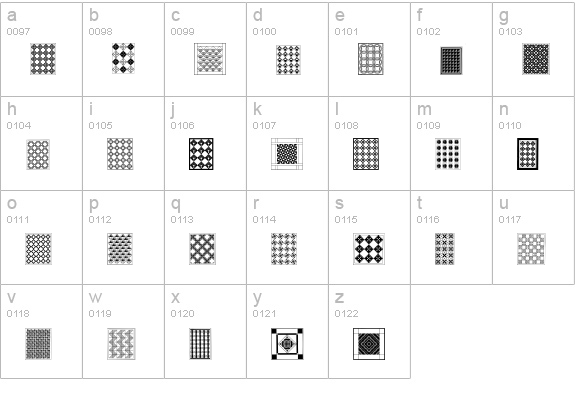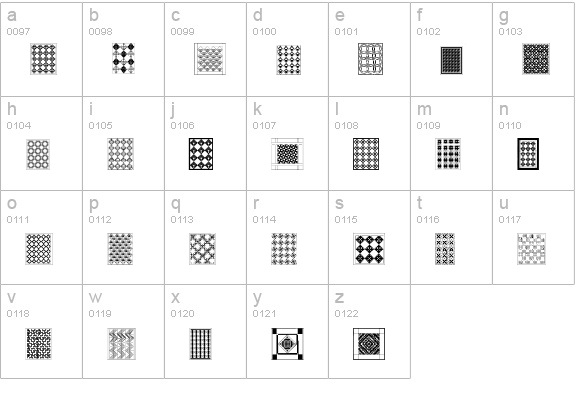
Amish Quilts Font Details
Introducing Amish Quilts font - a charming and rustic typeface inspired by the intricate patterns and vibrant colors of traditional Amish quilts. This unique font captures the essence of handcrafted beauty and timeless craftsmanship, making it perfect for adding a touch of warmth and nostalgia to your design projects. Amish Quilts font features a whimsical yet elegant style that is versatile and eye-catching. Whether you're creating invitations, posters, branding materials, or any other design, this font will bring a touch of handmade charm to your work. Best of all, Amish Quilts font is available for free download at FontsMarket.com. Embrace the artisanal spirit of the Amish tradition with this delightful font and elevate your designs with its unique character and charm.